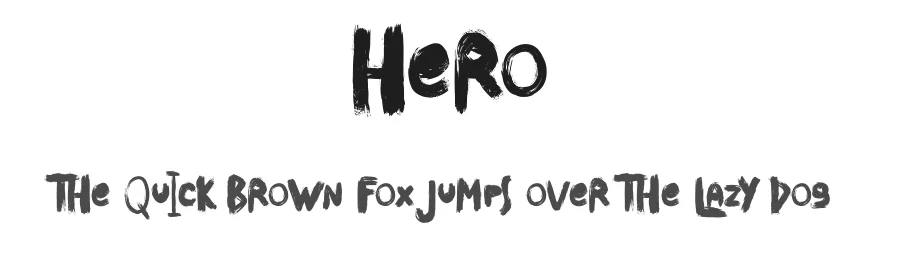
About Brush Pains Font
Brush Pains Specifications
| Font Family | Brush Pains |
| Full Name | Brush Pains |
| Version | 1.00 June 22, 2018, initial release |
| Glyph Count | 200 glyphs |
| PostScript Name | BrushPains |
| Designer | Jonathan Stephen Harris |
Brush Pains supports 209 languages.
Brush Pains Font is a decorative font that shines as a display or heading face. Pair it with a clean sans-serif or serif font for body text β the contrast creates a clear hierarchy while the two styles stay balanced and easy to read.